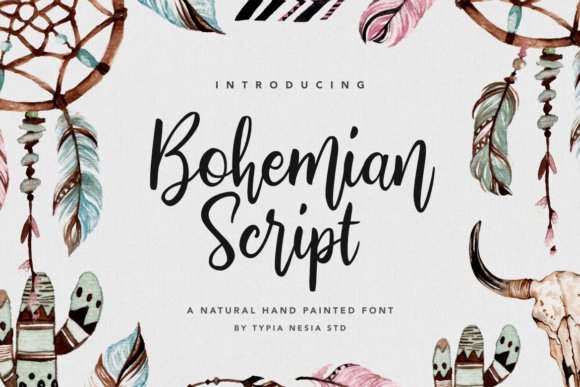
The Bohemian Script Font: A Beautifully Fresh Handwritten Style
I’ll never forget the moment I stumbled upon the perfect font for a client’s wedding invitation project. I had been searching for what felt like hours, trying out font after font, but nothing seemed quite right. That was until I discovered the Bohemian script font. Its organic feel and authentic twist instantly elevated my design, and I knew I had found the one. In this article, I’ll share my love for this beautiful font, its features, and how to make the most of it in your designs.
So, what makes the Bohemian script font so special? Here are a few things I love:
- ✨ Unique and authentic feel: The Bohemian script font has an organic, handmade quality that sets it apart from more traditional fonts.
- ✅ Highly legible: Despite its creative, cursive style, the font remains easy to read, making it perfect for a variety of design projects.
- 💫 Versatile: From wedding invitations to branding and packaging, this font can adapt to any design style.
- 🤔 Limited use of uppercase letters: While the font does include uppercase letters, they are not as stylized as the lowercase letters.
- ⚠️ Some glyphs may require manual adjustment: Depending on the design, you may need to adjust certain glyphs to ensure they fit together seamlessly.
- Experiment with the font’s OpenType features, such as stylistic alternates, to add variety to your text.
The Story Behind Bohemian Script Font
While the actual origins of the Bohemian script font are unclear, it’s easy to imagine that it was inspired by the free-spirited artists and designers of the Bohemian movement. This font embodies a sense of creativity and freedom, making it perfect for designers who want to add a touch of personality to their work.
| What makes the Bohemian script font unique? | The Bohemian script font has an organic, handmade quality that sets it apart from more traditional fonts. |
| Is the Bohemian script font suitable for body text? | While the font is highly legible, its creative, cursive style makes it better suited for headings and titles rather than body text. |